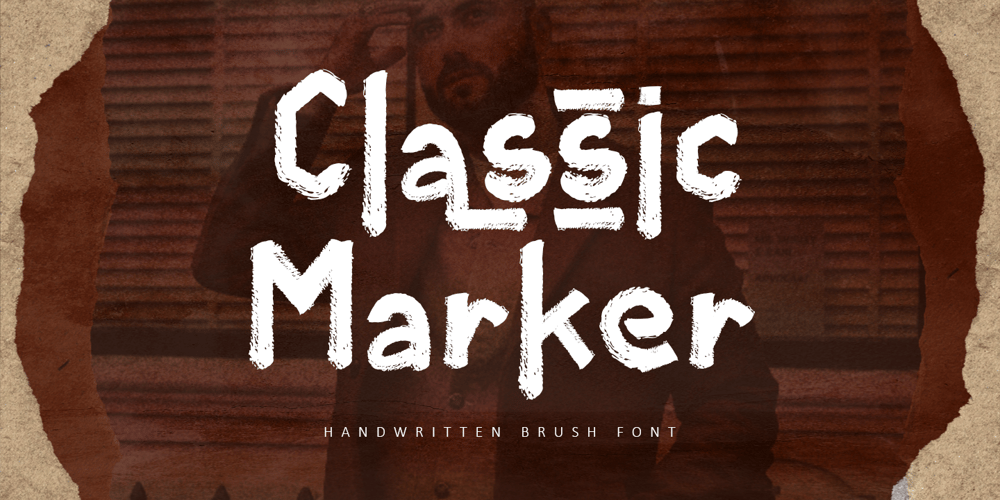
Classic Marker
Classic Marker font
Classic Marker Font Family was designed by Bayu Suwirya and published by Illushvara. Classic Marker contains 1 styles and family package options. Hello,Classic Marker is a display brush font with handwritten consept inspired with classic marker line. The strokes alternates make this font outstanding and looks like grunge line classic very great for logotypes. This type of font perfectly made to be applied especially in headline, logo, food packaging, fashion magazine, labels or any type of advertising purpose. This font support Multilingual Languages.FEATURES :UppercaseLowercaseNumberPunctuationMultilingualPUA EncodeOpentypeAlternatesLigaturesIf you have any question, don’t hesitate to contact me. Happy Designing !!!Thank You,Illushvara Design